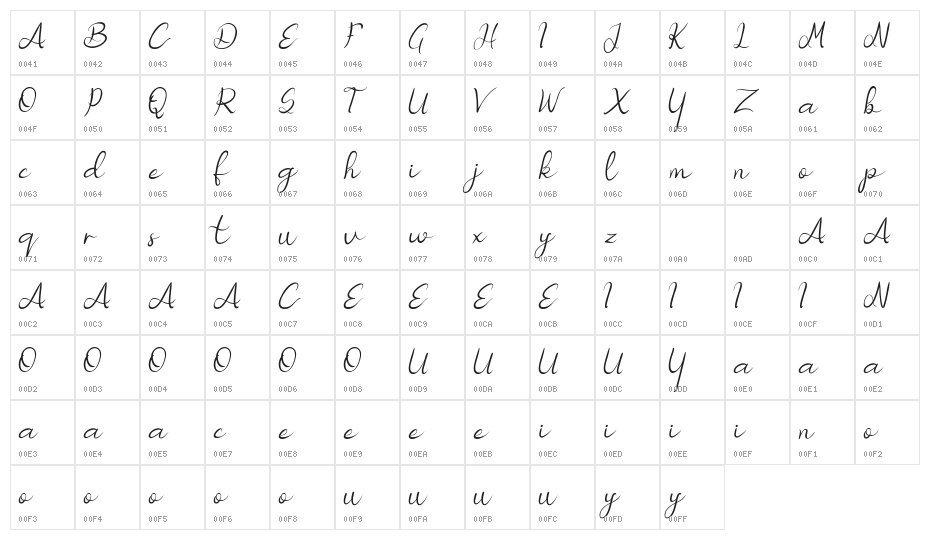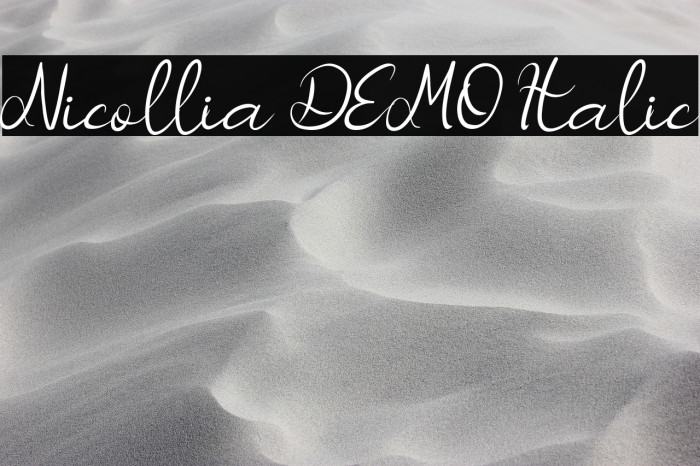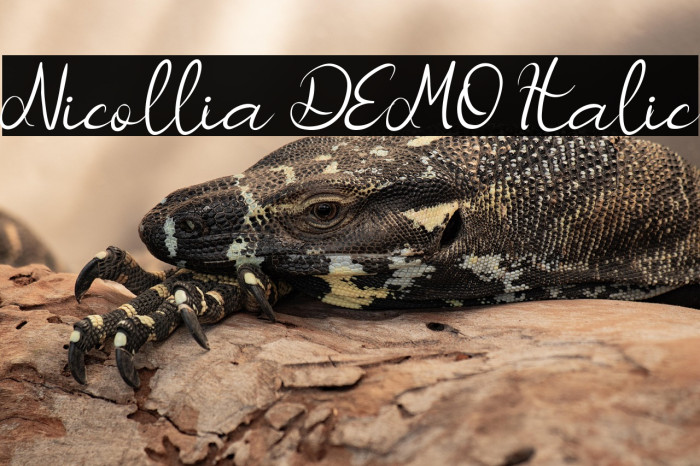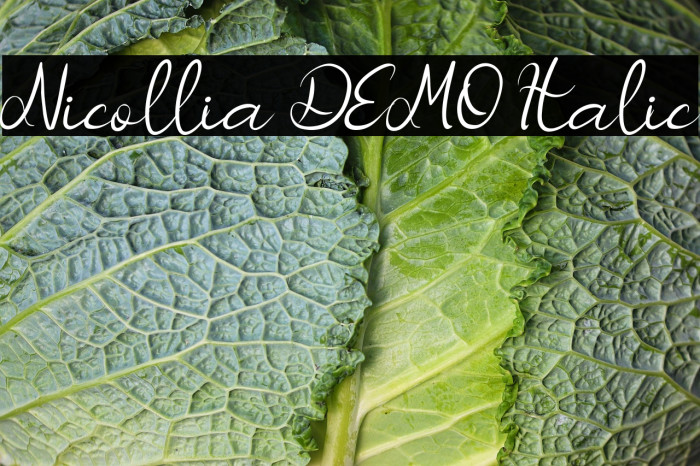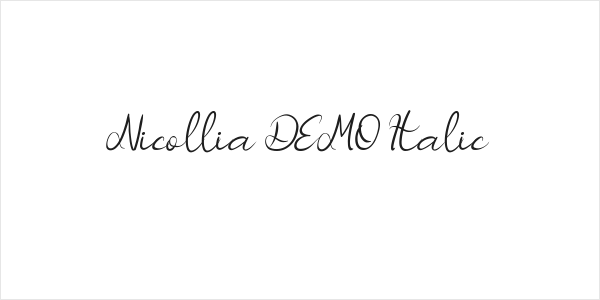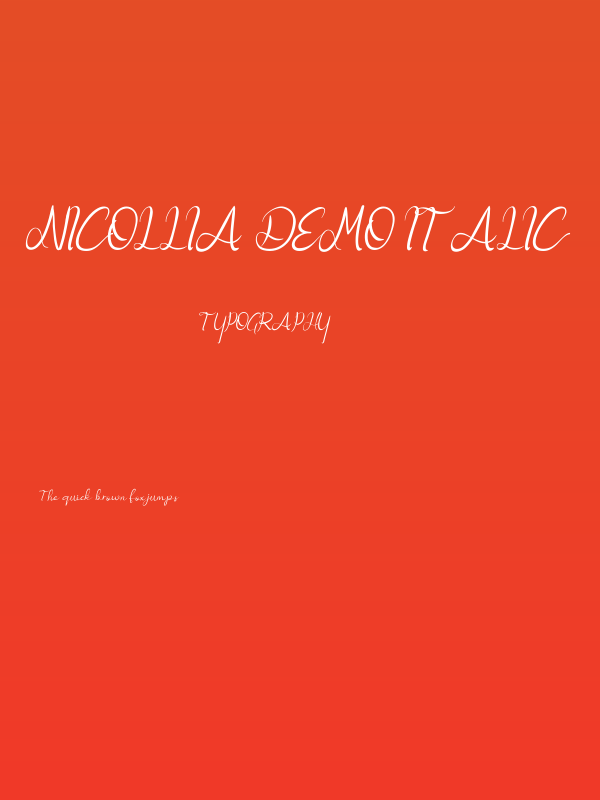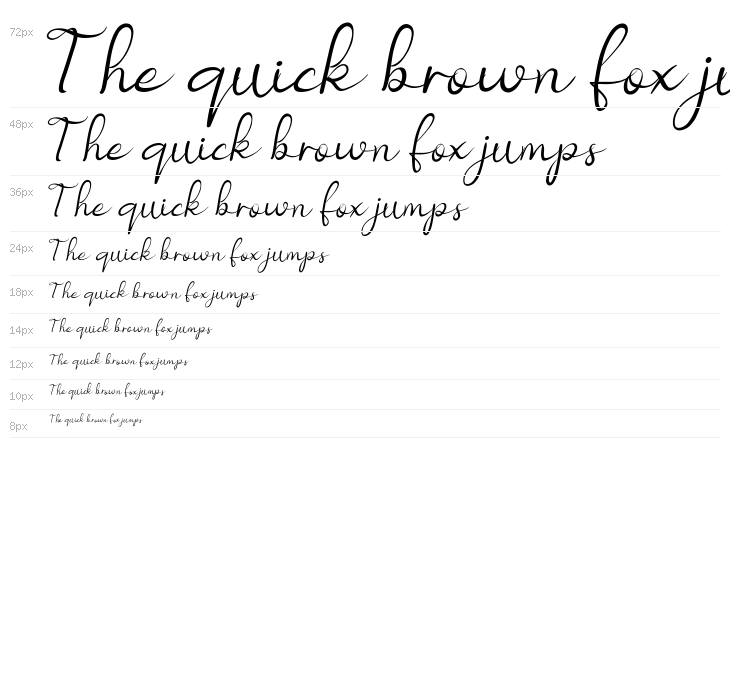
Nicollia DEMO Italic Font
Nicollia DEMO Italic Description
This elegant script font features a flowing, cursive style with a refined and sophisticated appearance. The letters are connected in a smooth, continuous manner, creating a sense of fluidity and grace. The strokes are moderately thick, with a consistent weight that adds to the font's readability. The uppercase letters are slightly more ornate, with flourishes that enhance their decorative appeal. The lowercase letters maintain a consistent height, contributing to a harmonious overall look. This font is ideal for projects that require a touch of elegance and sophistication, such as wedding invitations, formal event programs, or luxury branding.
| Overall Style | Elegant, Sophisticated |
| Use Case | Headlines, Invitations, Branding |
| Proposed Projects | Wedding invitations, formal event programs, luxury branding, elegant stationery. |